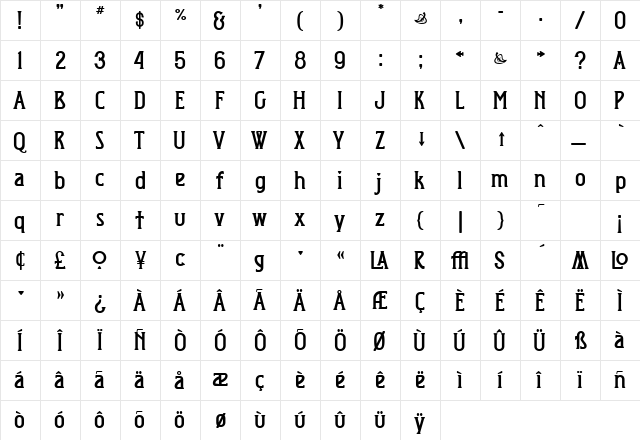
JM Exposition Rounded DemiBold Regular Font Preview
Design Context for JM Exposition Rounded DemiBold Typeface
JM Exposition Rounded DemiBold softens its letterforms with rounded terminals, giving it an approachable, friendly quality that works well in consumer-facing and digital contexts. Its bold stroke weight gives it real presence on the page.
A natural fit for tech startups, health and wellness brands, children's products, and friendly consumer apps.
Font Pairing: Pairs well with a rounded or humanist sans for body copy, maintaining the friendly tone without relying on JM Exposition Rounded DemiBold to carry extended reading.
Pro Tip: Pair JM Exposition Rounded DemiBold with a geometric sans for a balanced system — the rounded softness works as a warm counterpoint to harder-edged companions.